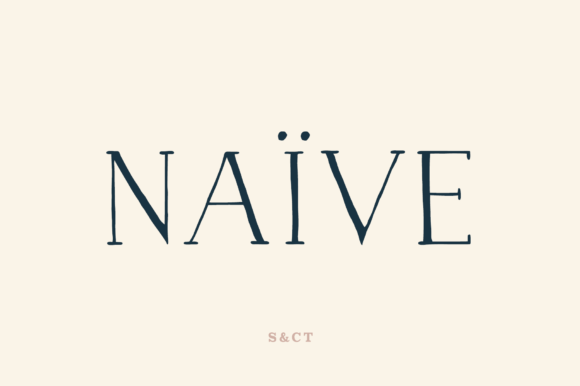
Introduce yourself to Naïve Font, the epitome of elegance and sophistication. This serif font, crafted by the renowned SC Type, exudes a timeless charm that will elevate your designs to new heights. Its delicate strokes and graceful curves lend an air of refinement, making it the perfect choice for those seeking a font that speaks volumes.
With Naïve Font, you hold the key to unlocking a world of creative possibilities. Whether you're designing a captivating book cover, crafting an unforgettable magazine layout, or creating social media posts that demand attention, this font will effortlessly amplify your message. Its minimalist and clean vibe effortlessly adapts to your design aesthetic, adding a touch of sophistication without overpowering your content.
Imagine your wedding invitations adorned with the elegance of Naïve Font. Its flowing lines and romantic overtones will set the perfect tone for your special day, captivating your guests from the moment they receive their invitations. The beauty of Naïve Font lies in its versatility. It seamlessly blends with a variety of design styles, from classic and traditional to modern and contemporary. Whether you're working on a personal project or a professional endeavor, Naïve Font will seamlessly integrate into your vision, adding a touch of sophistication and charm.